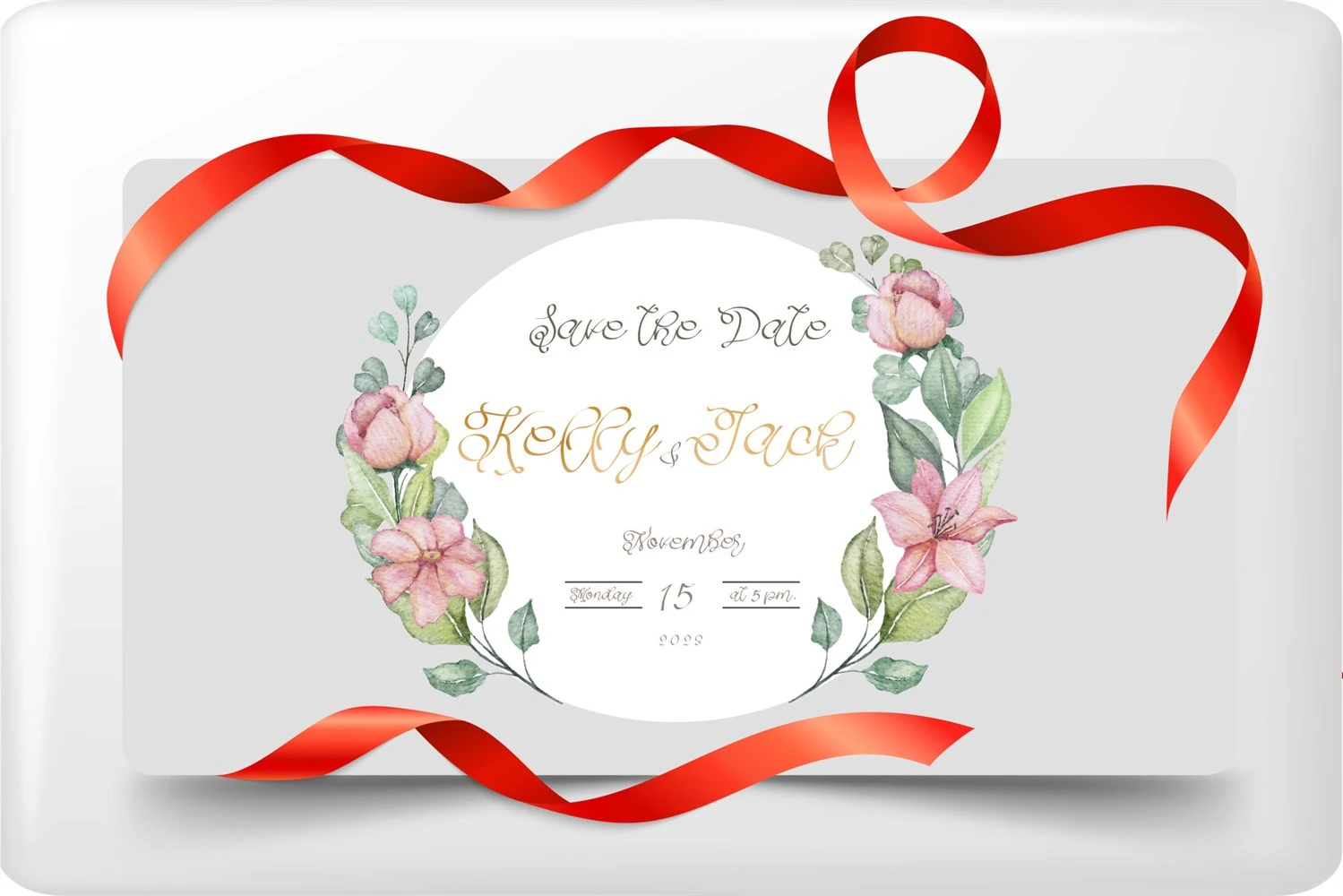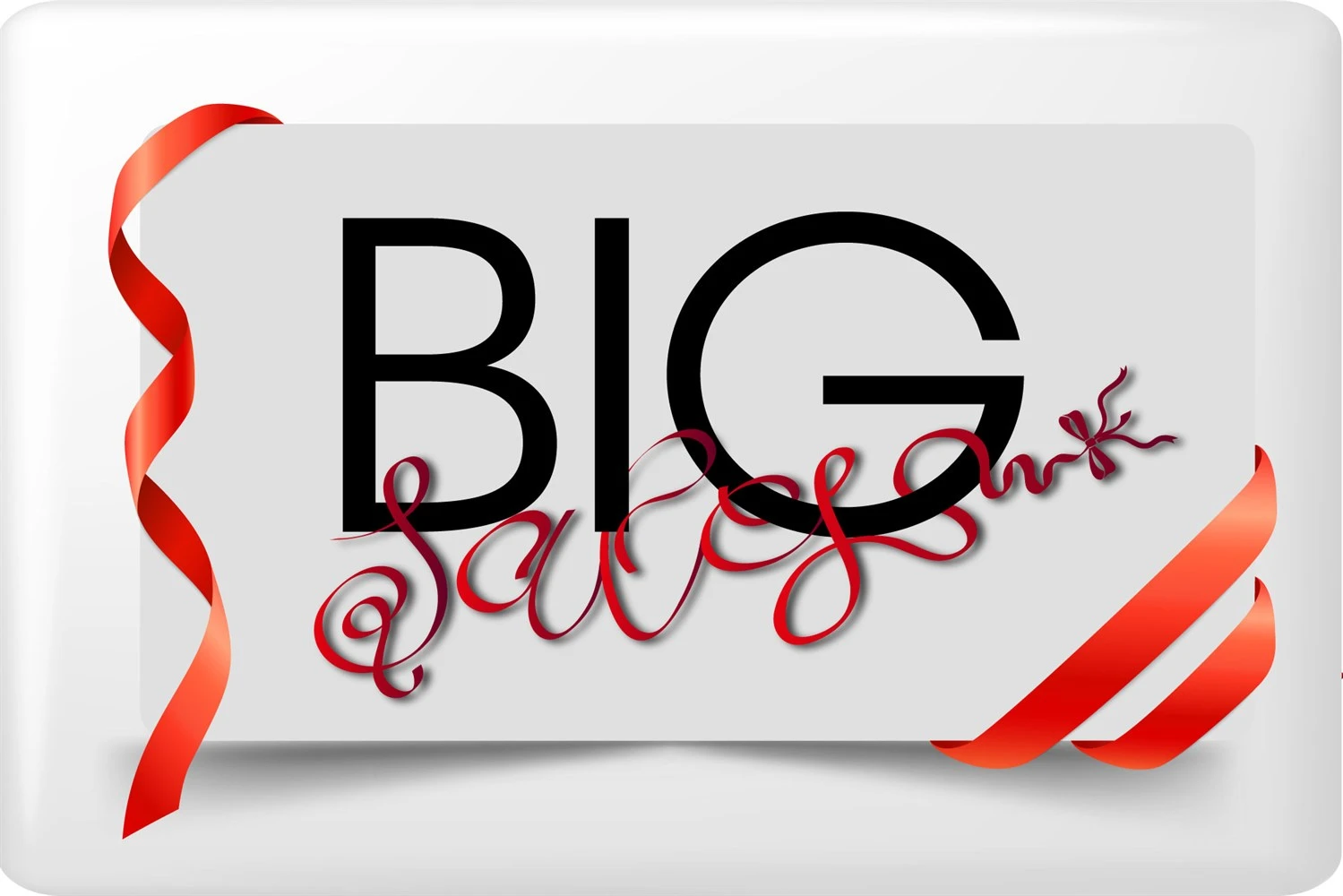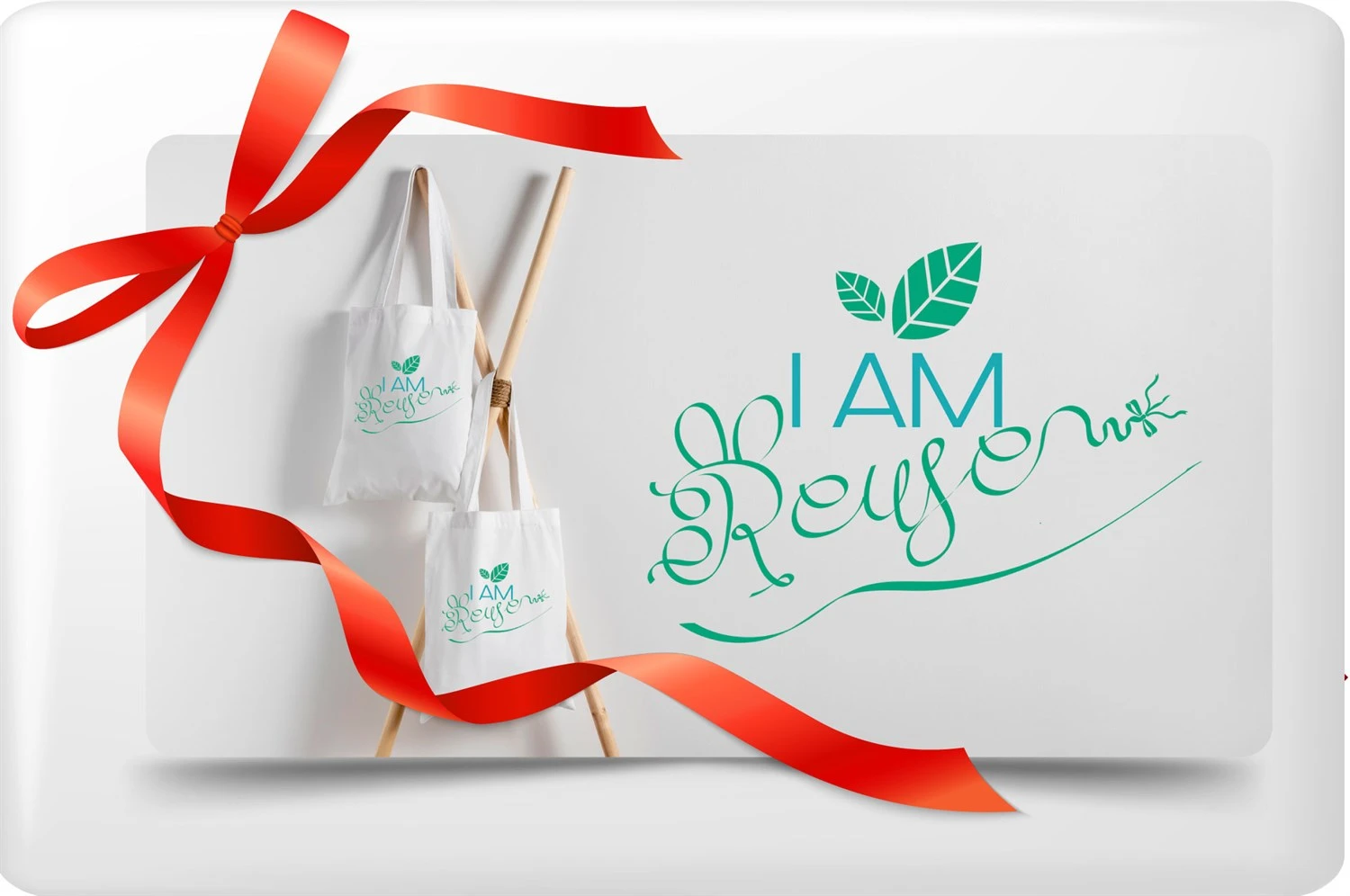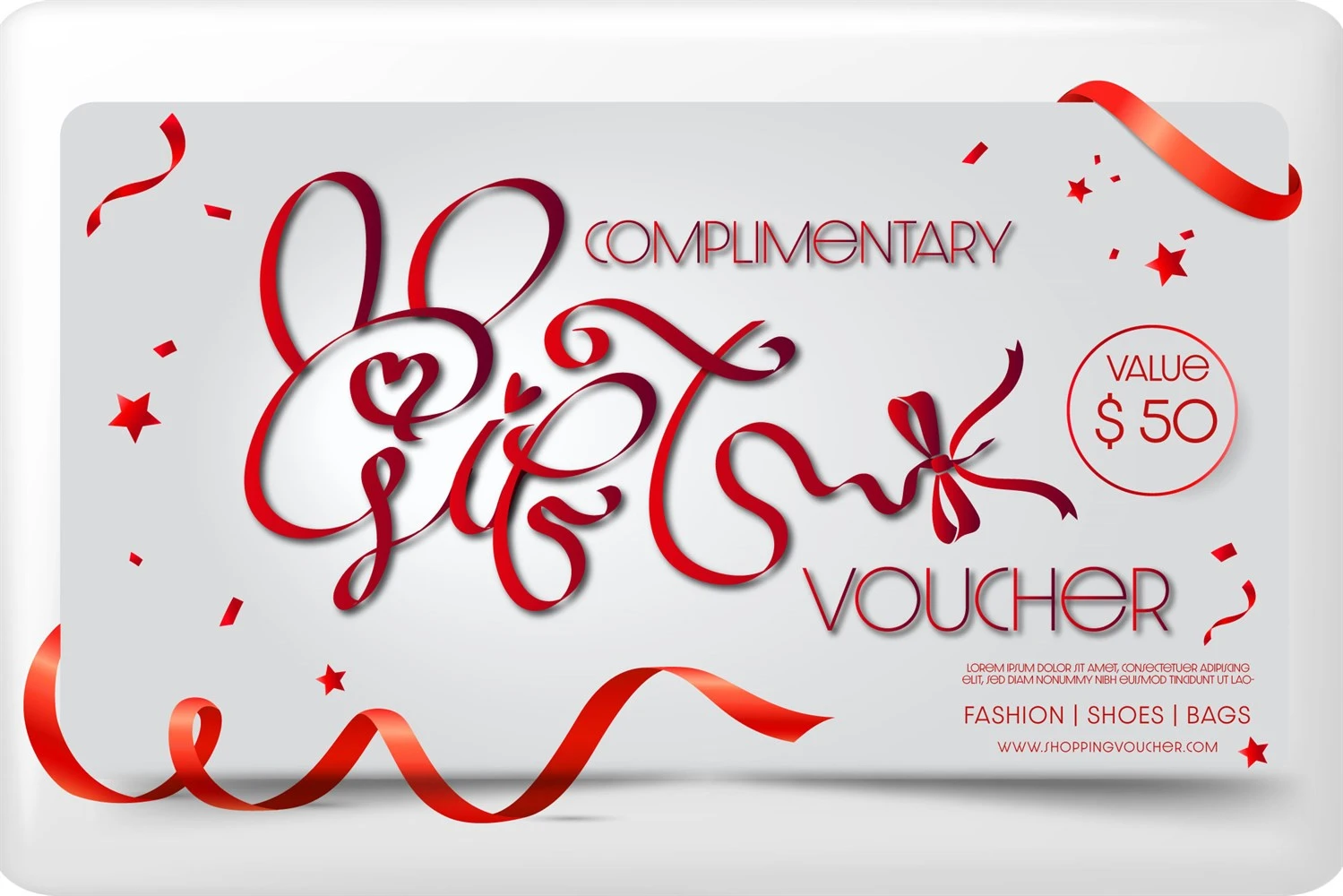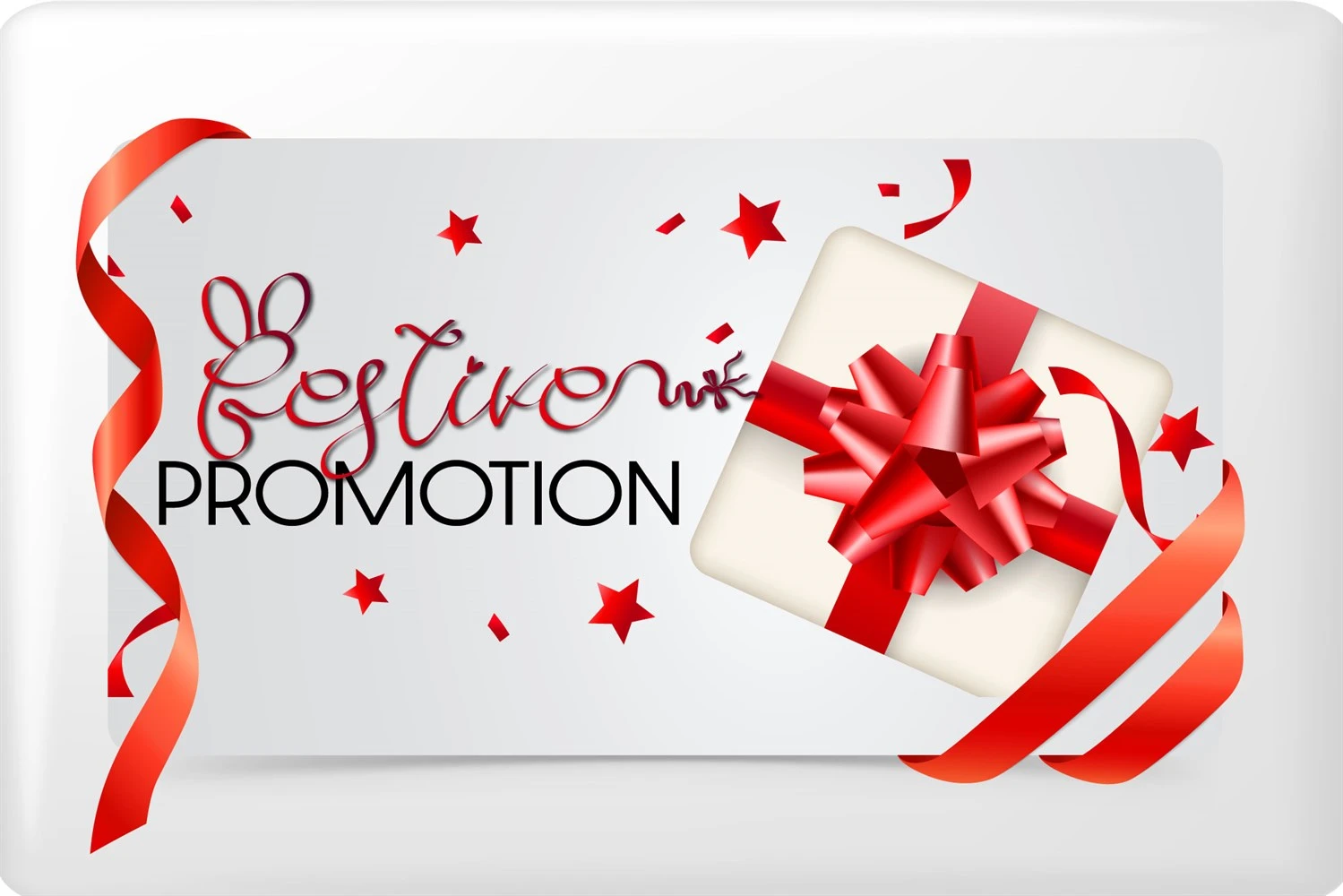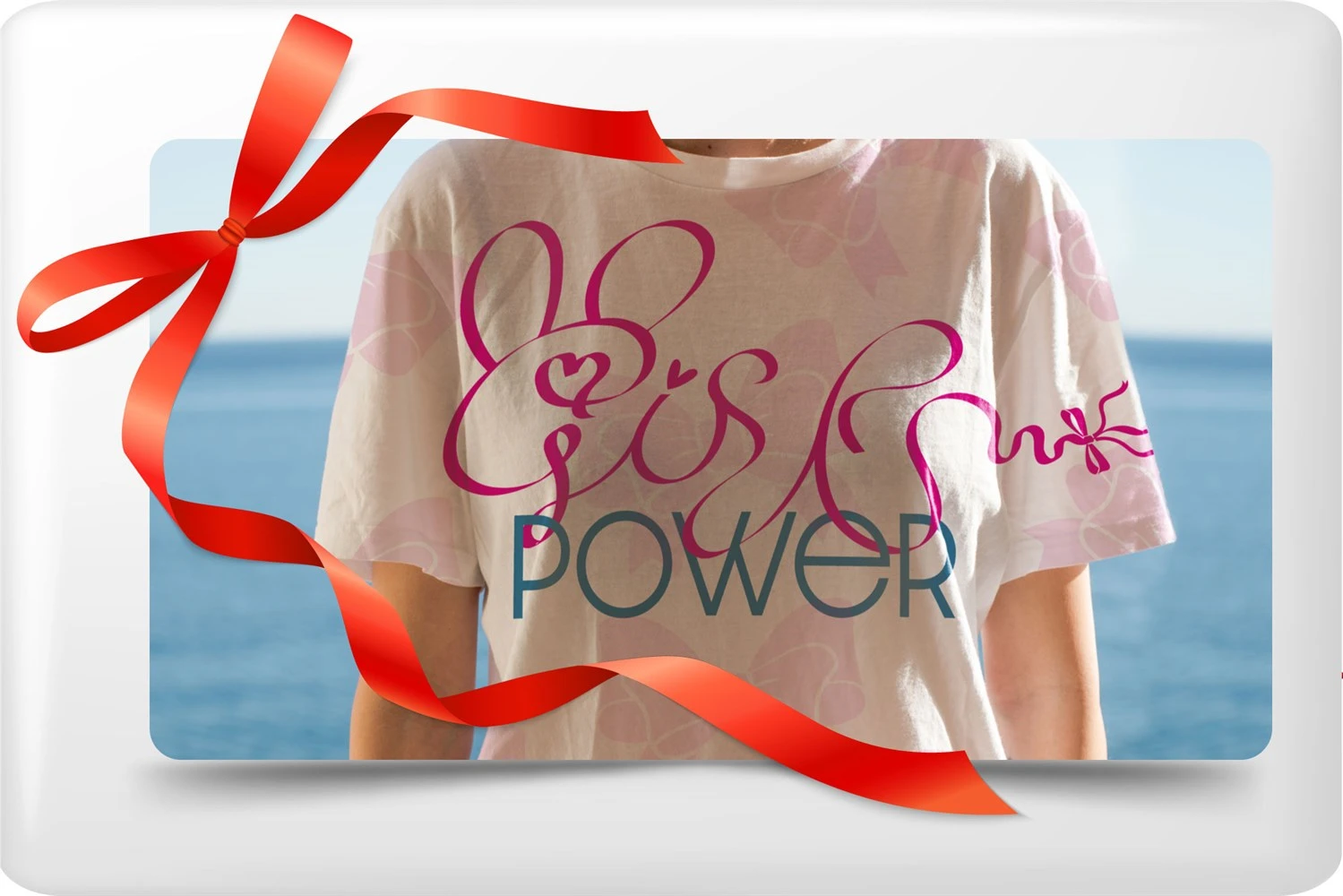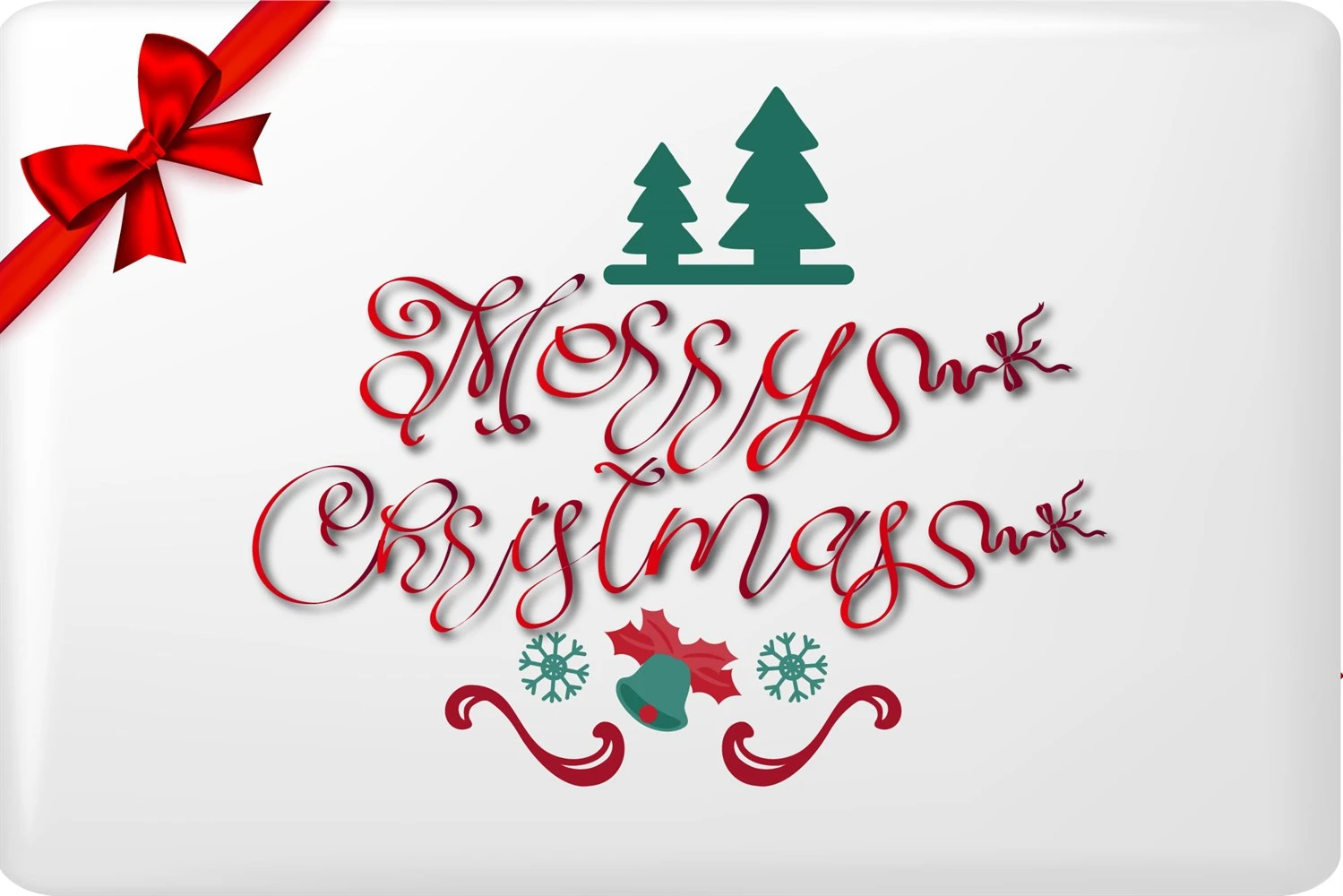
Gift Font is a charming and elegant typeface that adds a delightful handwritten touch to your designs. Its stunning appeal makes it perfect for various projects such as wedding invitations, thank you cards, quotes, greeting cards, logos, and business cards. With Gift Font, you can effortlessly infuse your designs with a touch of grace and sophistication. Get creative and let this font be the perfect gift to your artistic endeavors.
Gift Font